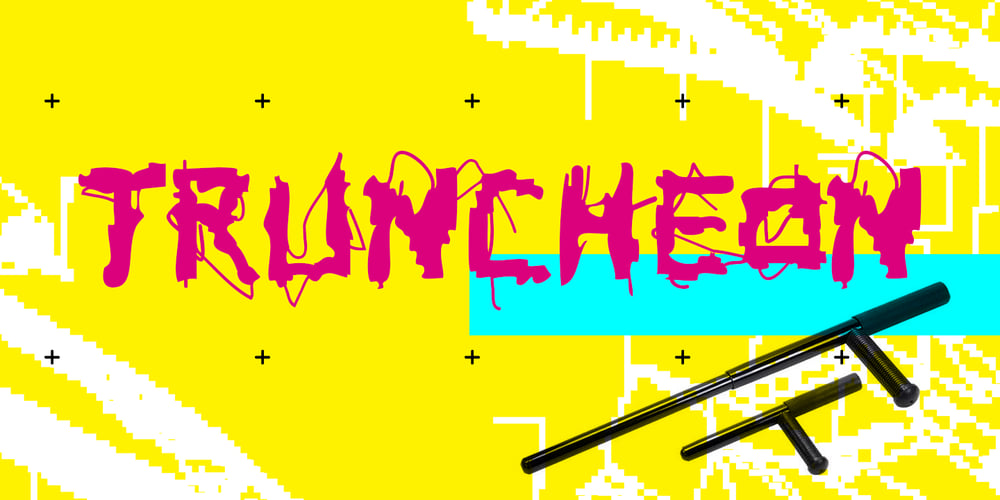
Truncheon
Truncheon font
Truncheon Font Family was designed by Todd Dever and published by Cool Fonts. Truncheon contains 1 styles and family package options. Truncheon is a grunge font with hair on its chest. Like its namesake it beats you over the head with enough attitude to leaves you confused and spinning. Upper and Lower case characters have variations like filled counters to keep things random.